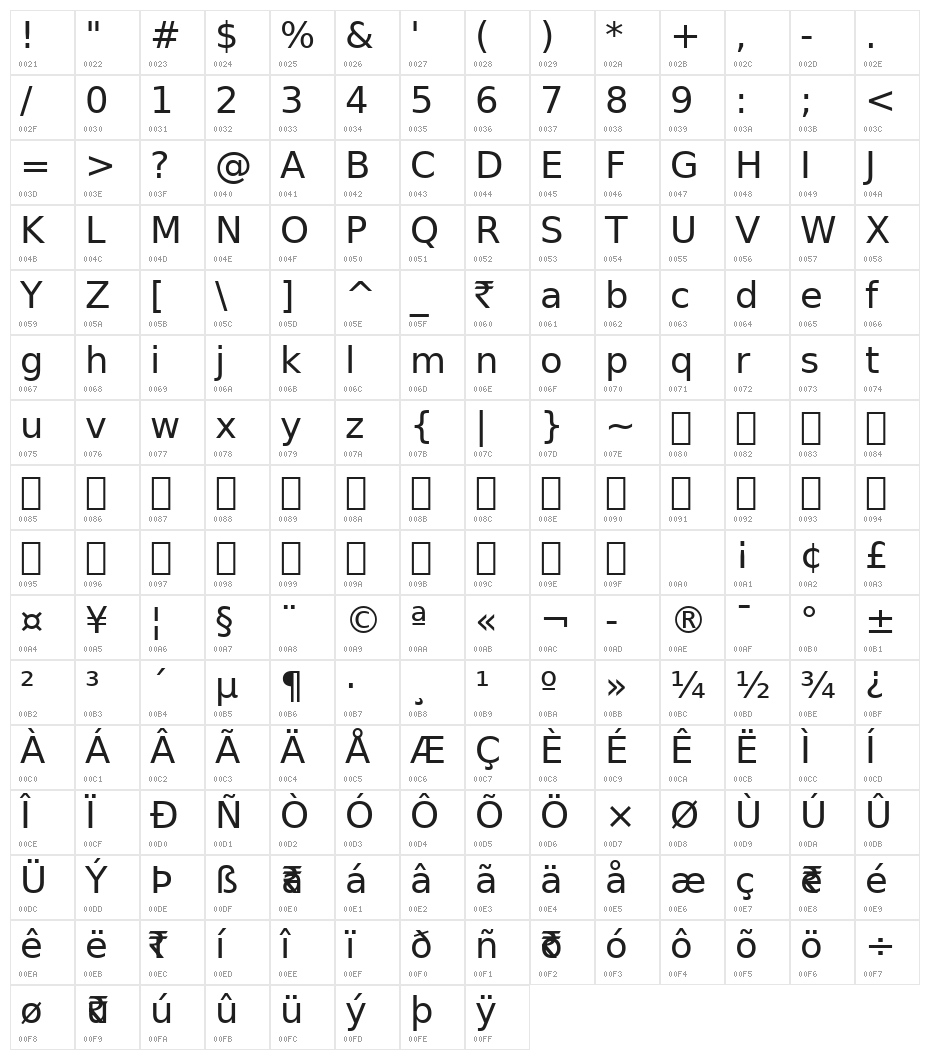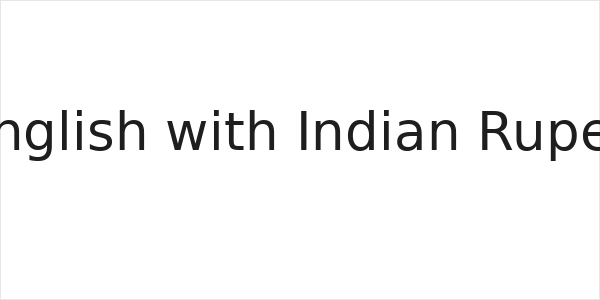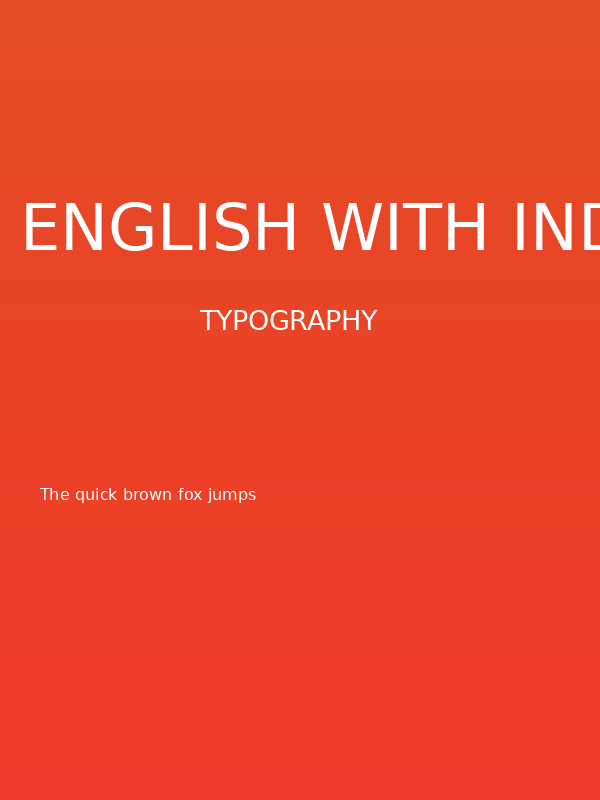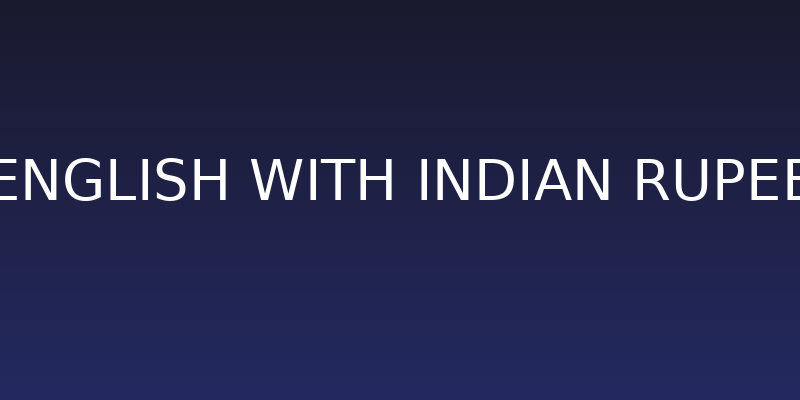
English with Indian Rupee Font
English with Indian Rupee Description
This font features a clean and modern sans-serif style, characterized by its simplicity and readability. The characters are well-proportioned with a consistent stroke width, providing a uniform appearance across both uppercase and lowercase letters. The numerals are clear and distinct, making them easily legible. Special characters are included, maintaining the same design ethos, ensuring they blend seamlessly with the rest of the typeface. The overall design is versatile, suitable for a wide range of applications, from digital interfaces to print media. Its straightforward and uncluttered aesthetic makes it ideal for conveying information clearly and effectively.